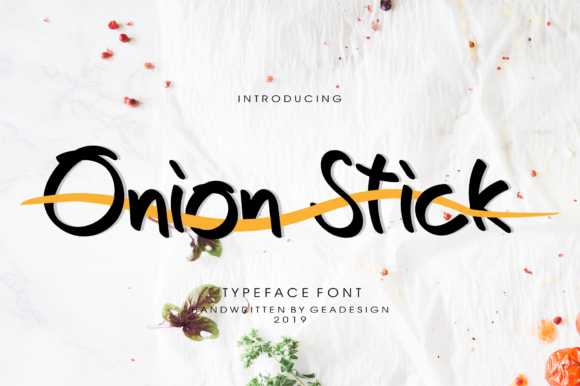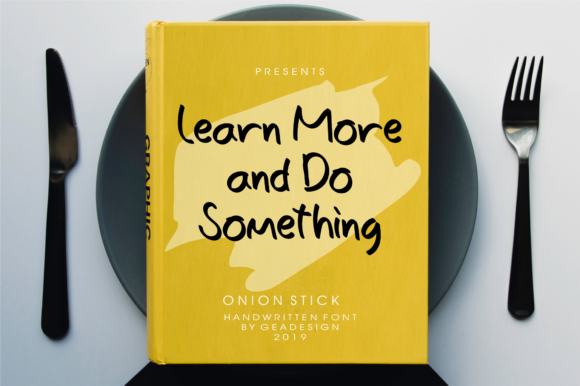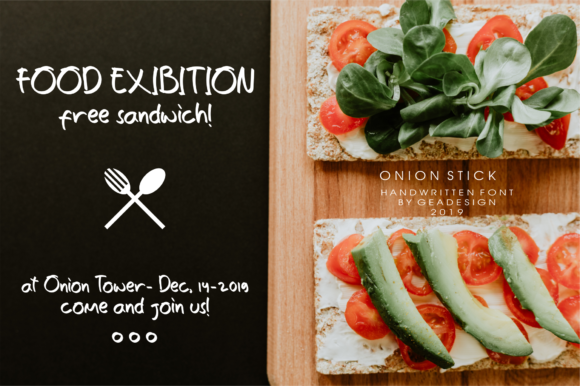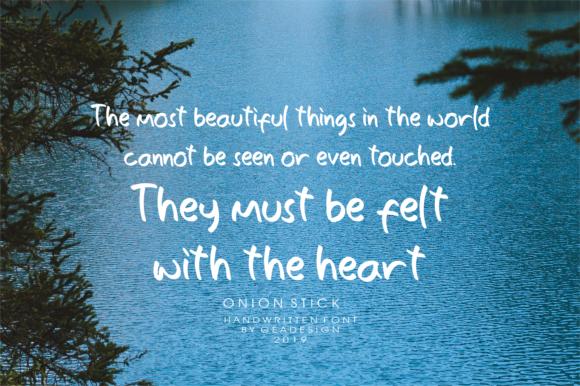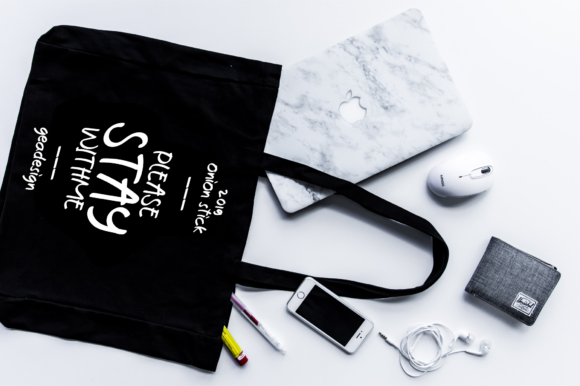
Onion Stick Font
About Onion Stick Font
Onion Stick is a handwritten font that looks minimal, yet playful. It’s perfect for branding, quotes and any design projects that need a simple and fun touch.